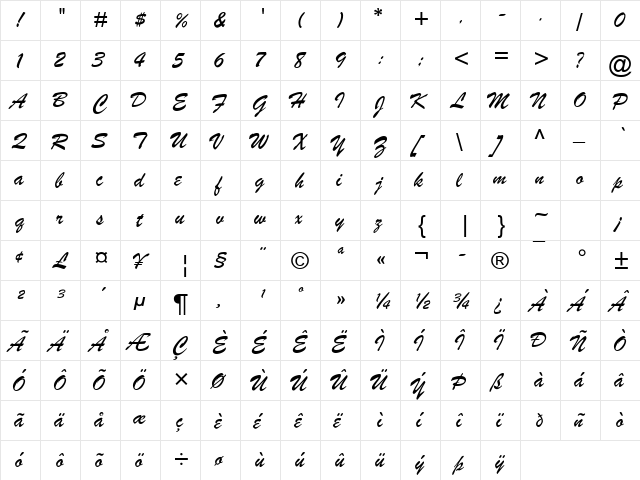
Brush Script e Italic
Design Context for Brush Script e Typeface
Brush Script e brings a calligraphic fluidity to the page — its connecting strokes and expressive curves give it an unmistakably human quality.
Font Pairing: Combine Brush Script e with a simple geometric sans for maximum contrast — the tension between flowing curves and clean structure is a classic typographic pairing.
Pro Tip: Use Brush Script e for short runs of text — names, titles, or taglines. Extended body copy in script faces tires the eye quickly.